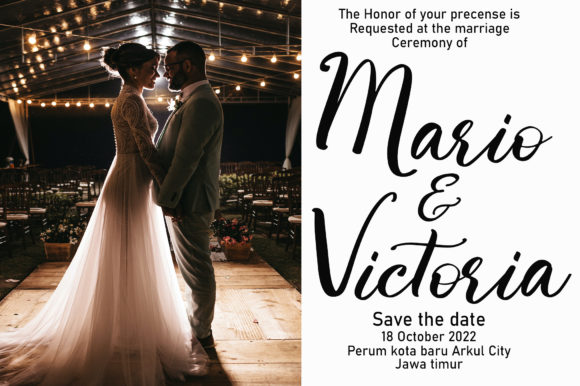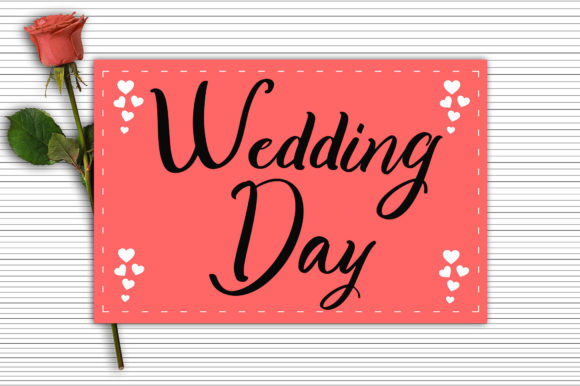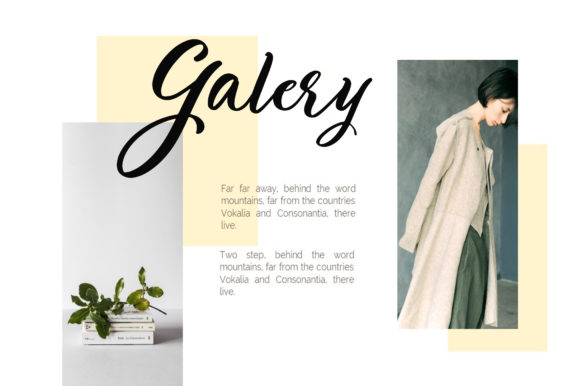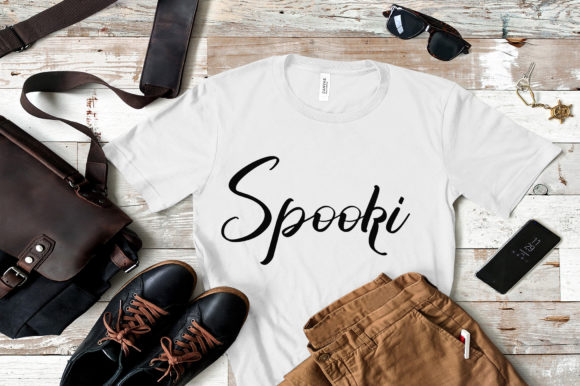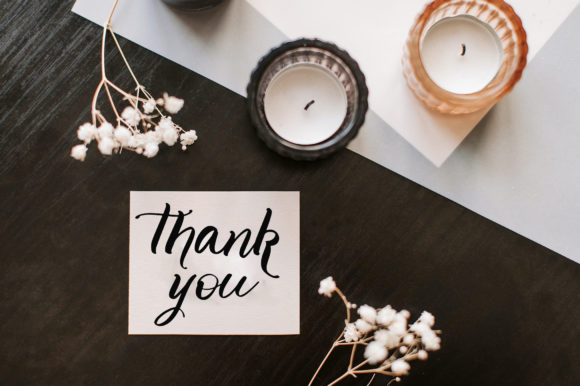
Adelia Font
About Adelia Font
Adelia is a romantic, elegant, and sweet calligraphy typeface with characters that dance along the baseline. It will add a luxury spark to any design project that you wish to create!